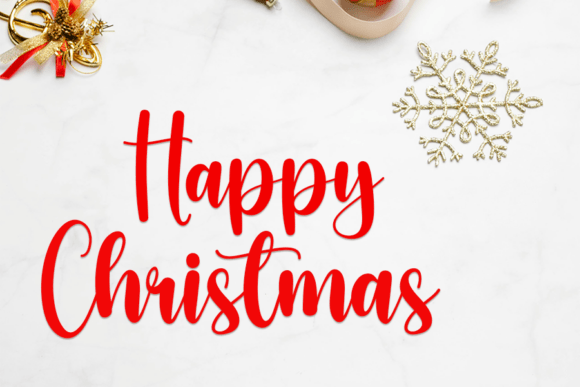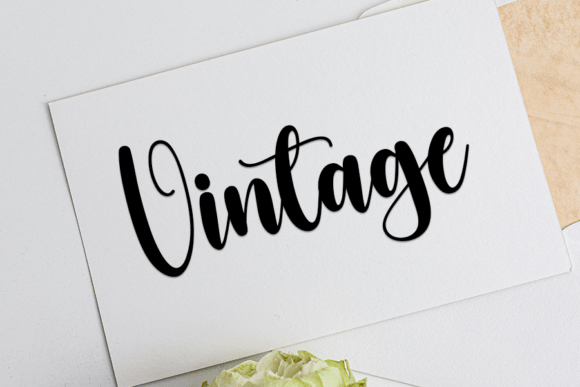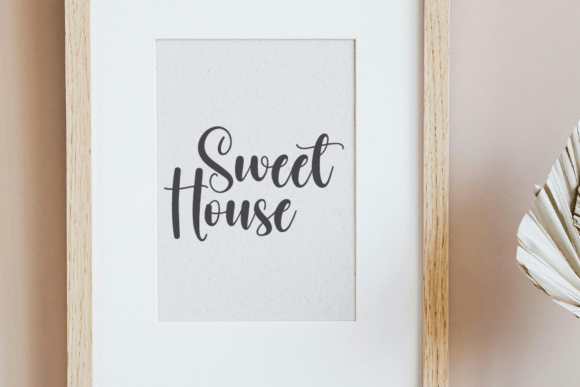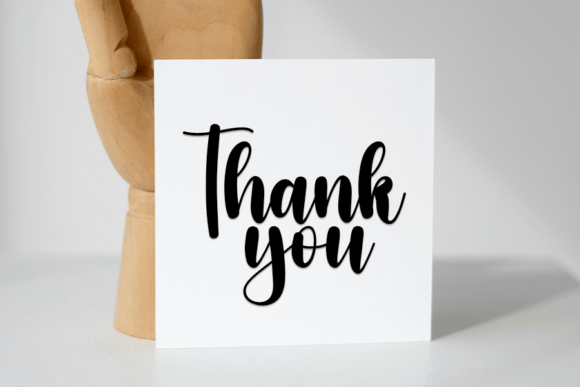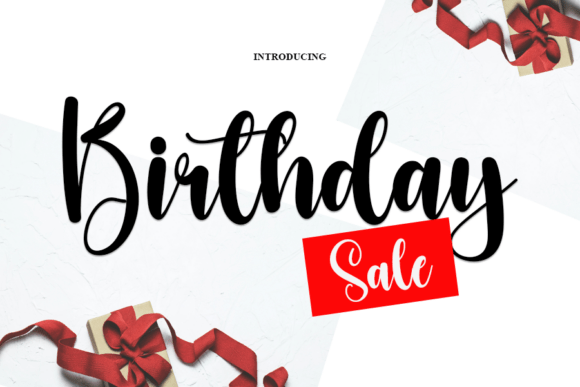
Introducing Birthday Sale Font: The Perfect Addition to Your Design Arsenal
Are you on the hunt for a font that can add a touch of elegance and whimsy to your designs? Look no further than Birthday Sale Font, a delicate handwritten font carefully crafted for a cool and unique design. In this article, we’ll dive into the world of Birthday Sale Font, exploring its features, uses, and benefits for designers and crafters alike.
What is Birthday Sale Font?
Birthday Sale Font is a beautiful, hand-crafted font designed to bring a touch of sophistication and charm to your designs. With its delicate lines and whimsical flair, this font is perfect for creating eye-catching titles, invitations, and more. Whether you’re a seasoned designer or a crafty DIY enthusiast, Birthday Sale Font is sure to become a staple in your design arsenal.
Features of Birthday Sale Font
So, what makes Birthday Sale Font so special? Here are just a few of its standout features:
- Delicate Handwritten Style: Birthday Sale Font boasts a beautiful, handwritten style that’s perfect for creating unique and eye-catching designs.
- Cool and Unique Design: This font’s cool and unique design makes it perfect for a wide range of applications, from invitations and titles to food products and more.
- Versatile: Birthday Sale Font is incredibly versatile, making it suitable for use in a variety of design projects, from digital to print.
Uses for Birthday Sale Font
So, how can you use Birthday Sale Font in your designs? The possibilities are endless! Here are a few ideas to get you started:
- Invitations: Use Birthday Sale Font to create beautiful, one-of-a-kind invitations for special occasions like birthdays, weddings, and baby showers.
- Food Products: Add a touch of whimsy to your food product labels and packaging with Birthday Sale Font.
- Titles and Headings: Use Birthday Sale Font to create eye-catching titles and headings for your blog posts, articles, and more.
- Letters and Correspondence: Add a personal touch to your letters and correspondence with Birthday Sale Font.
Benefits of Using Birthday Sale Font
So, why should you choose Birthday Sale Font for your design projects? Here are just a few benefits:
- Unique and Eye-Catching: Birthday Sale Font is sure to make your designs stand out from the crowd.
- Easy to Read: Despite its delicate lines, Birthday Sale Font is incredibly easy to read, making it perfect for use in a variety of design projects.
- Time-Saving: With Birthday Sale Font, you can create beautiful designs in no time, saving you time and effort.
Tips for Using Birthday Sale Font
Here are a few tips for getting the most out of Birthday Sale Font:
- Experiment with Colors: Don’t be afraid to experiment with different colors and color combinations to find the perfect look for your design.
- Pair with Other Fonts: Consider pairing Birthday Sale Font with other fonts to create a unique and eye-catching design.
- Use it Sparingly: While Birthday Sale Font is beautiful, it’s best used sparingly to avoid overwhelming your design.
In conclusion, Birthday Sale Font is a beautiful and versatile font that’s perfect for designers and crafters alike. With its delicate lines, whimsical flair, and ease of use, this font is sure to become a staple in your design arsenal. Whether you’re creating invitations, titles, or food product labels, Birthday Sale Font is the perfect choice. So why wait? Give Birthday Sale Font a try today and see the difference it can make in your designs!